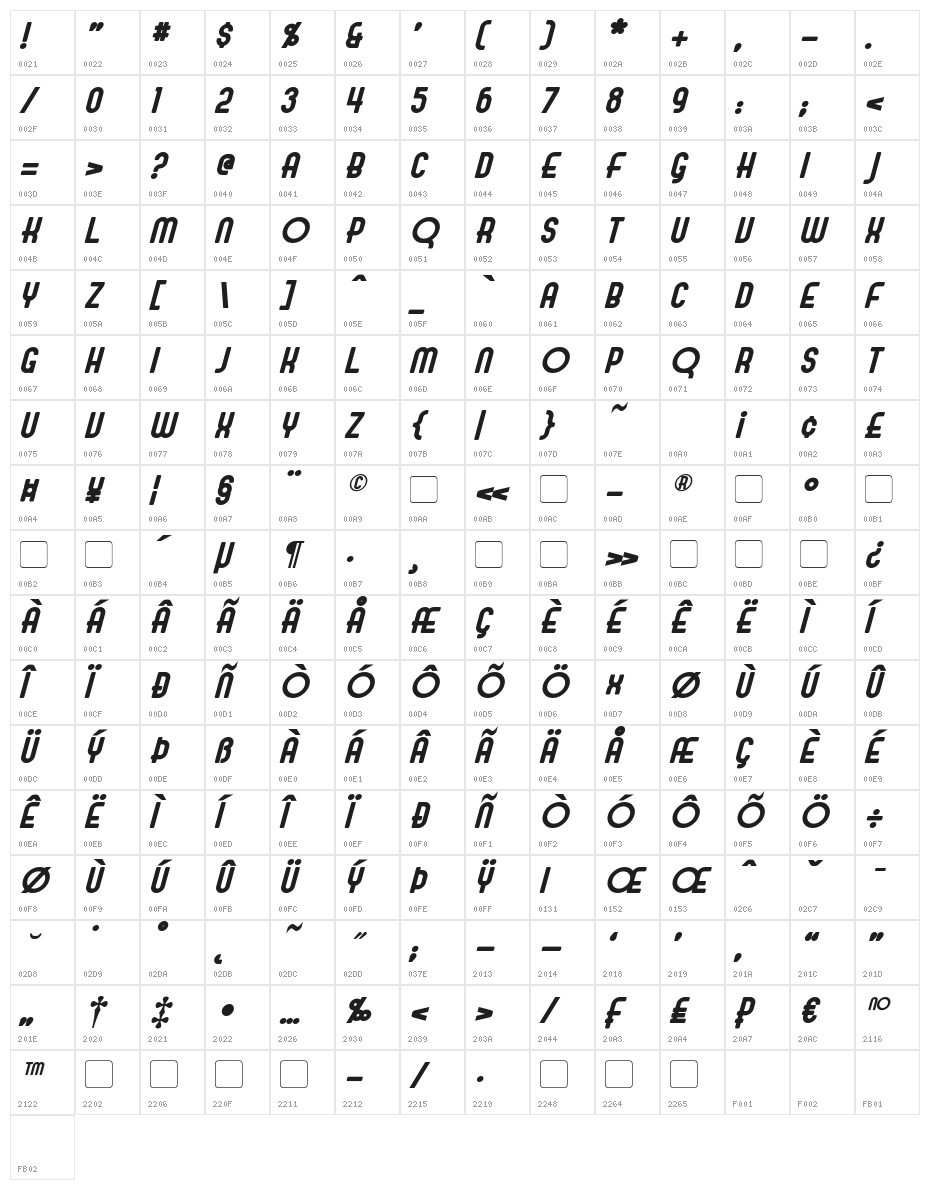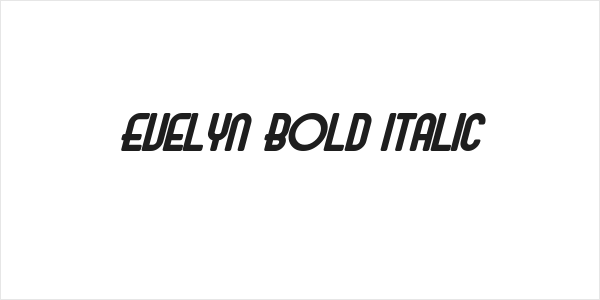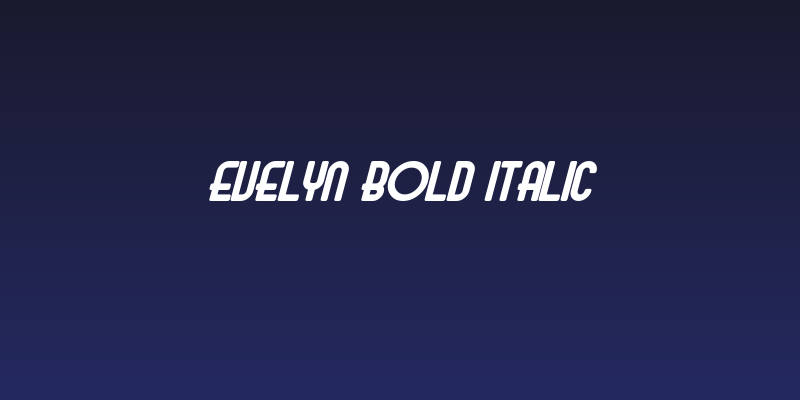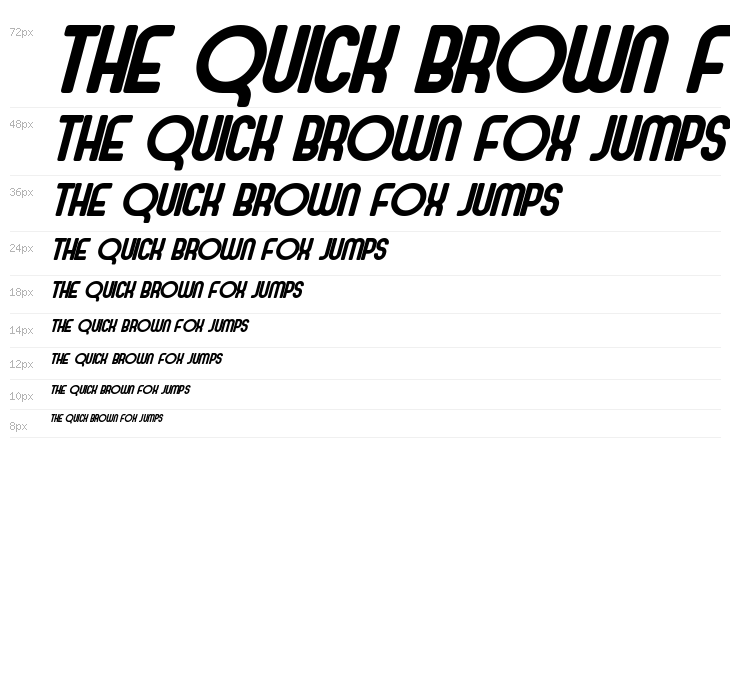
Evelyn Bold Italic Font
Evelyn Bold Italic Description
This font features a bold and italicized style, characterized by its smooth, rounded edges and a slight slant that adds a dynamic feel. The letters are well-proportioned, with consistent stroke thickness that gives it a strong presence. The numerals and special characters maintain the same boldness and slant, ensuring uniformity across all characters. Its modern design is both eye-catching and versatile, making it suitable for various applications. The overall aesthetic is sleek and contemporary, with a touch of playfulness due to its rounded forms.